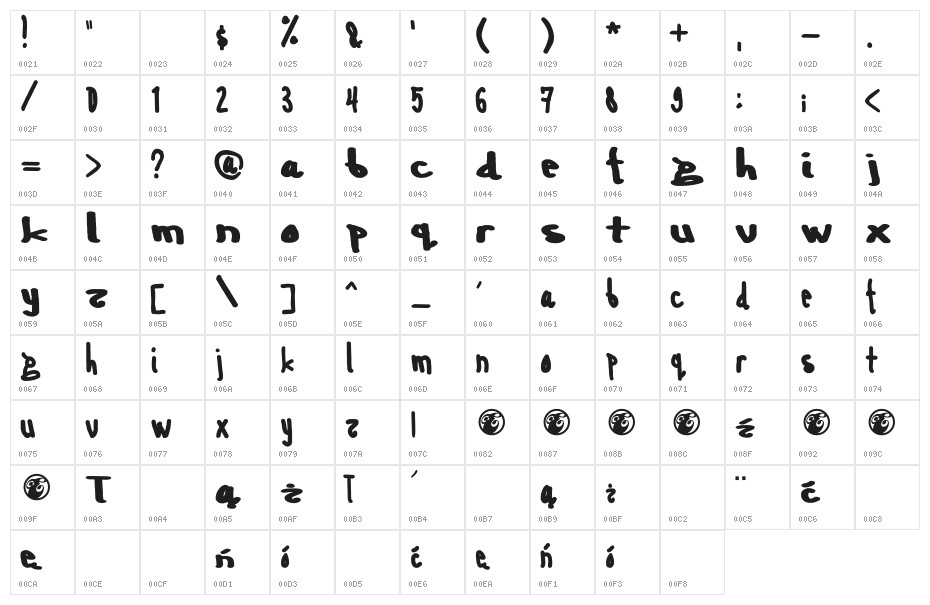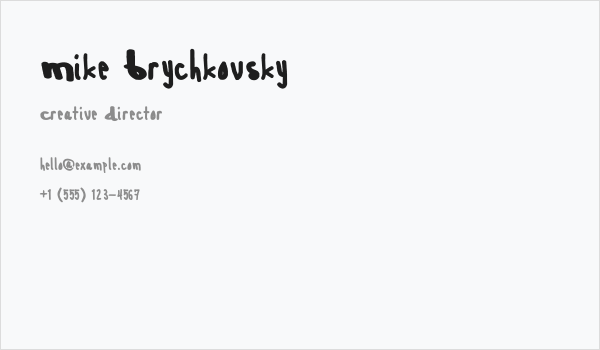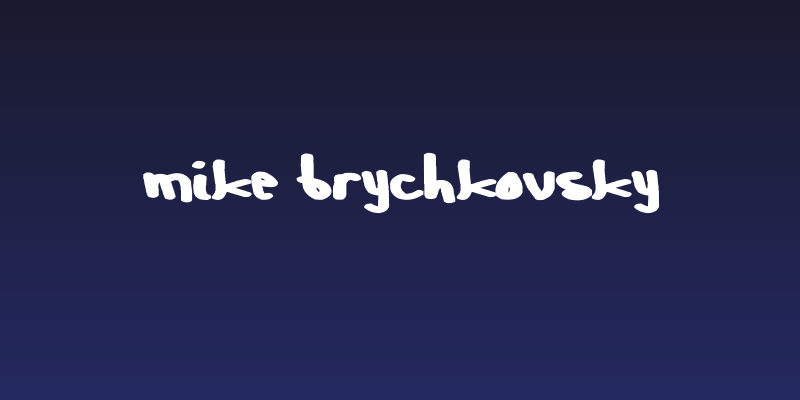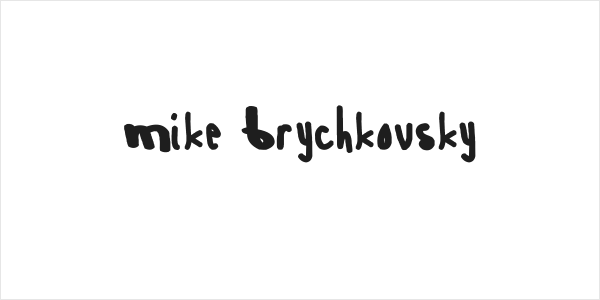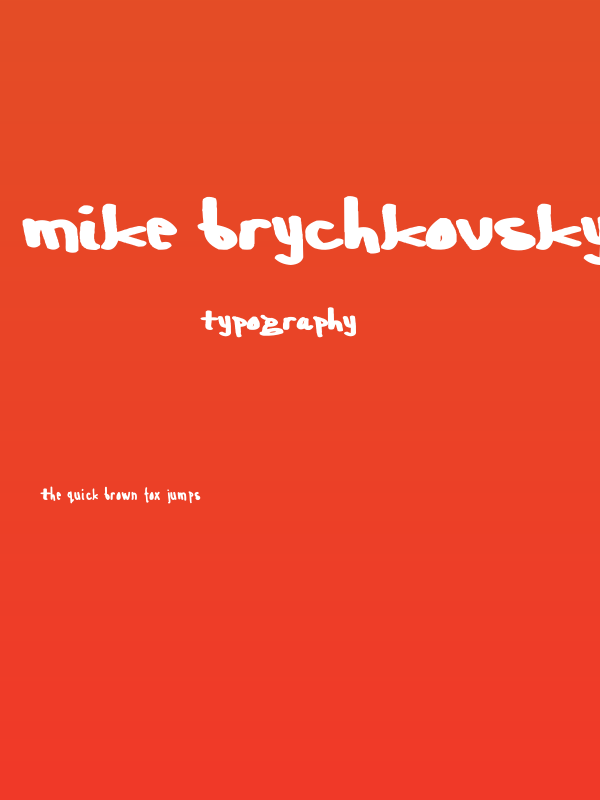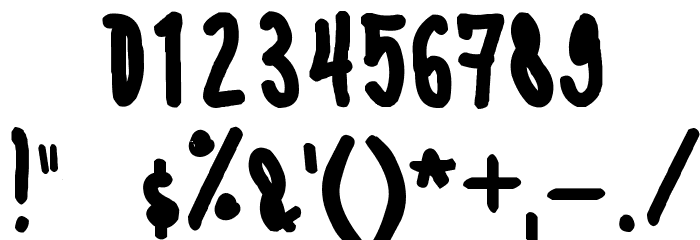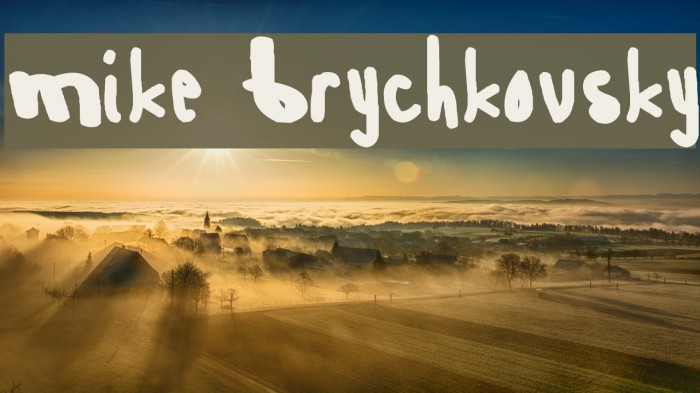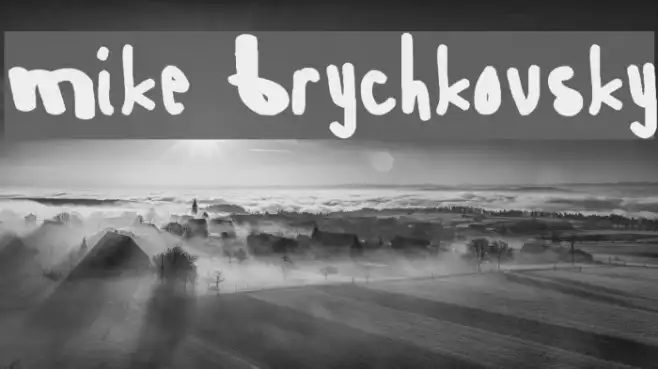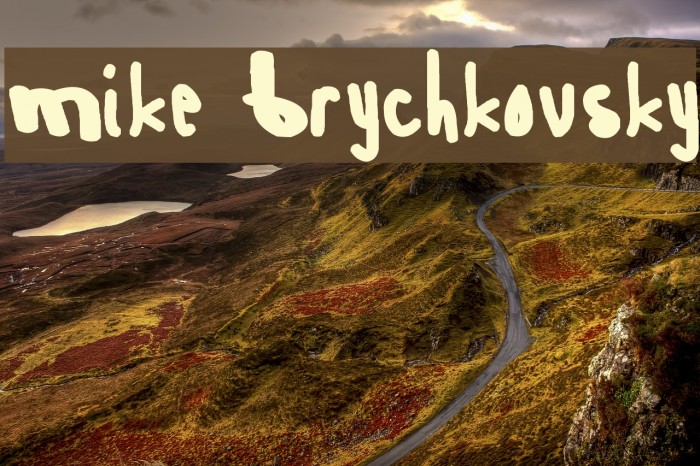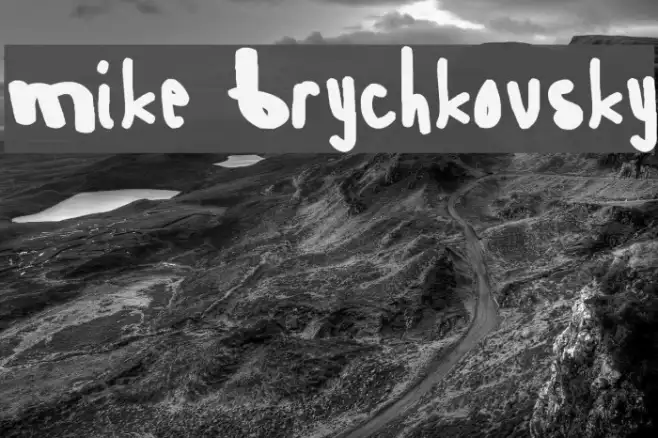
Mike Brychkovsky Font
Mike Brychkovsky Description
This font exhibits a bold, handwritten style with a playful and informal appearance. The characters are thick and rounded, giving a sense of warmth and approachability. The strokes are uneven, adding a dynamic and lively feel to the text. The font maintains a consistent weight throughout, with a slightly irregular baseline that enhances its casual charm. It includes a full set of uppercase and lowercase letters, numbers, and a variety of special characters, making it versatile for various design needs. The overall look is reminiscent of hand-drawn lettering, perfect for projects that require a personal touch.
| Use Case | Logos, Headlines, Informal Text |
| Proposed Projects | Ideal for greeting cards, children's books, playful branding, and social media graphics. |